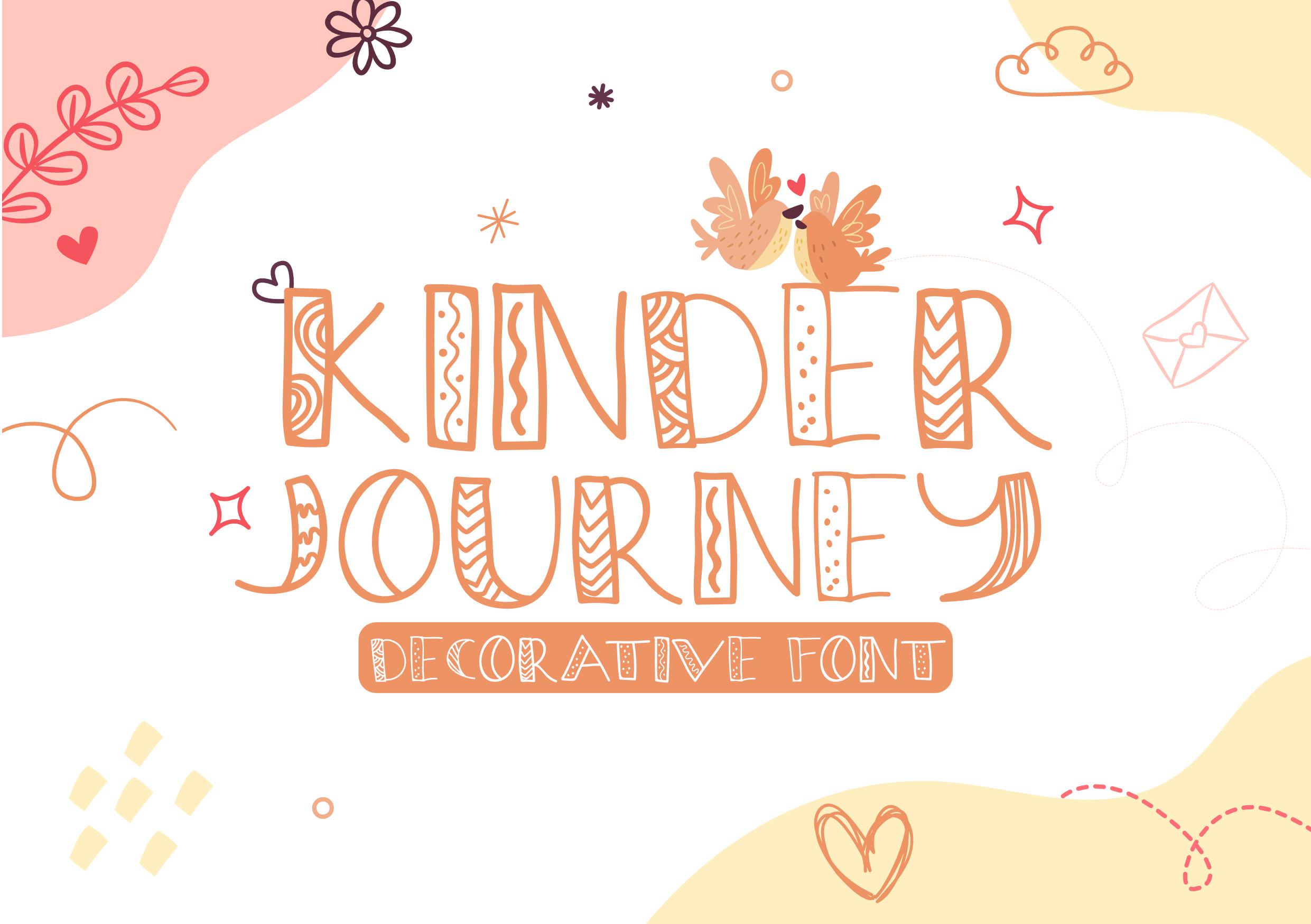
Kinder Journey Font Description
Kinder Journey is a fun display font with a unique look! It will elevate a wide range of design projects to the highest level, be it branding, headings, wedding designs, invitations, signatures, logos, labels, and much more!